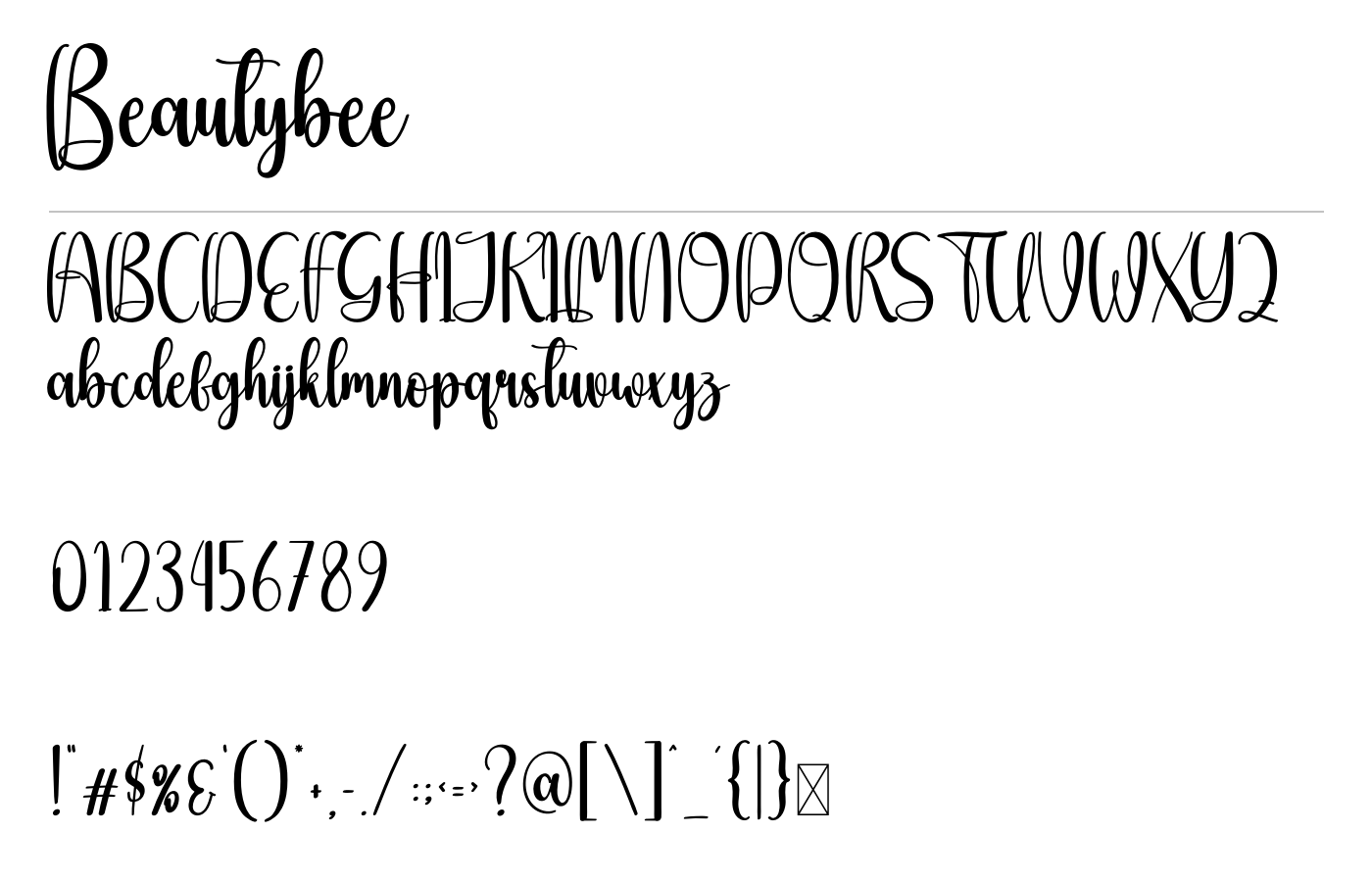
Beautybee is a playful and elegant script font with a light, airy feel, featuring tall, slender letterforms and smooth, flowing strokes. Its delicate curves and whimsical flourishes make it perfect for creative branding, invitations, and feminine design projects that seek a modern yet charming touch. This font works well in headlines and decorative text where a stylish, hand-drawn personality is desired.
Beautybee Font